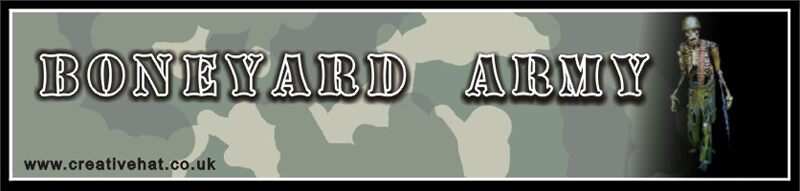
Boneyard Army is a free outlined military display font with tall, commanding capitals and a rough parade-ground swagger. Narrow strokes sit inside broad, uneven contours, and the softly flared ends give the lettering a carved, hand-cut look.
Military history and frontier entertainment are its clearest subjects. It suits reenactment posters, game title cards, themed event signage, and rugged merchandise, where the hollow construction can echo stamped insignia or painted placards. Those uses share theatrical authority, with irregular outlines keeping the martial reference closer to pulp adventure than ceremony.